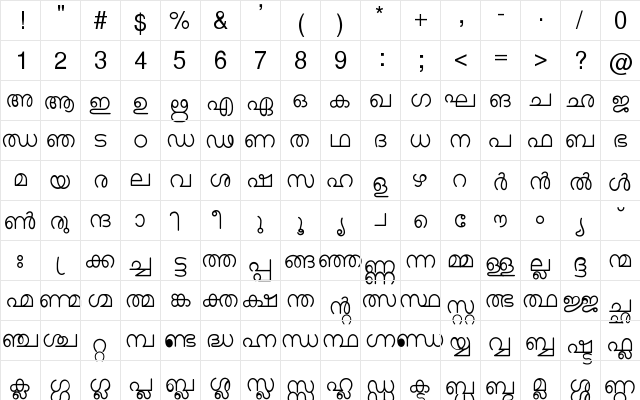
nonstdml Book
Design Context for nonstdml Typeface
nonstdml takes a measured approach to typography — its balanced proportions and neutral character make it a reliable workhorse for both digital and print work.
Pro Tip: Pair nonstdml with a font of contrasting weight or personality to build a more expressive typographic hierarchy.